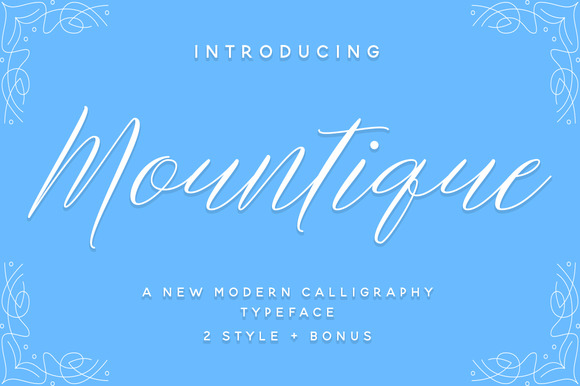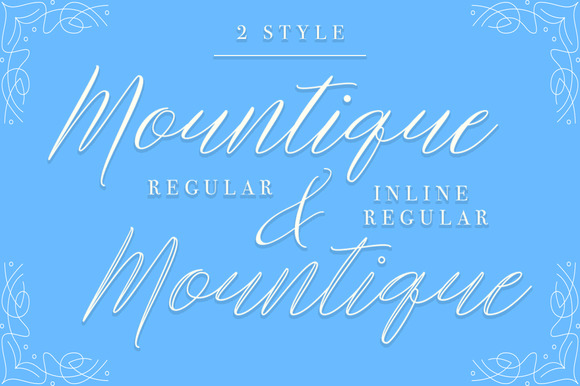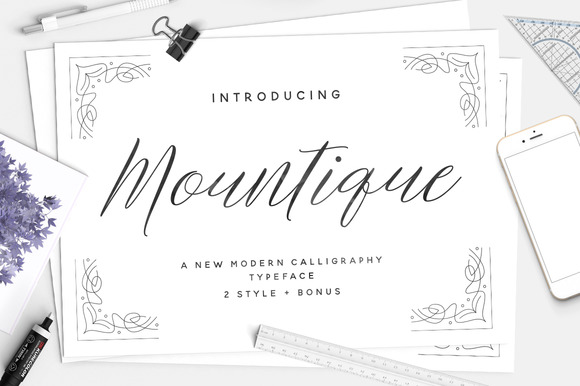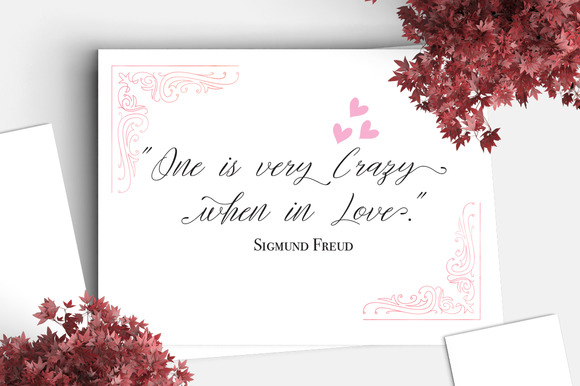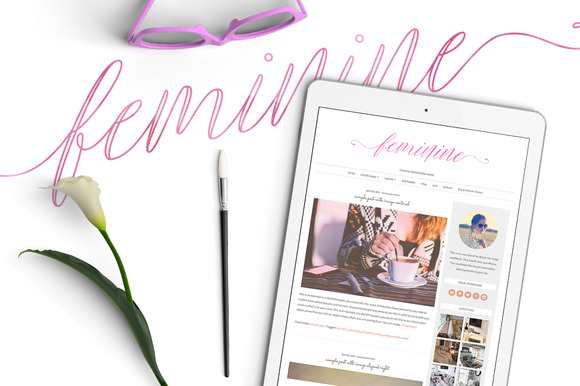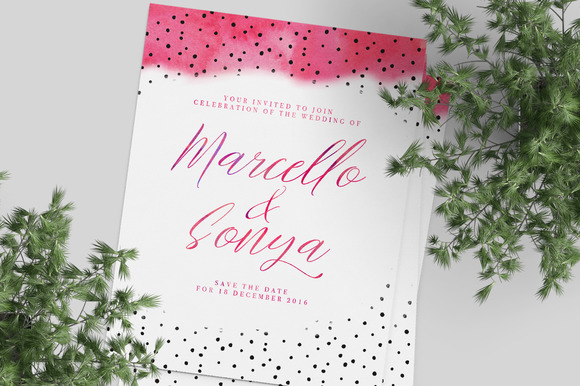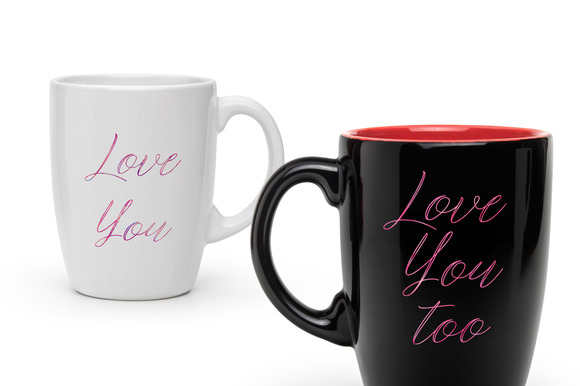
Mountique Font
About Mountique Font
Mountique Script Typeface is a new Modern Calligraphy Typeface Fonts collection. It is combined from copperplate and contemporary typeface and has a classic and elegant touch